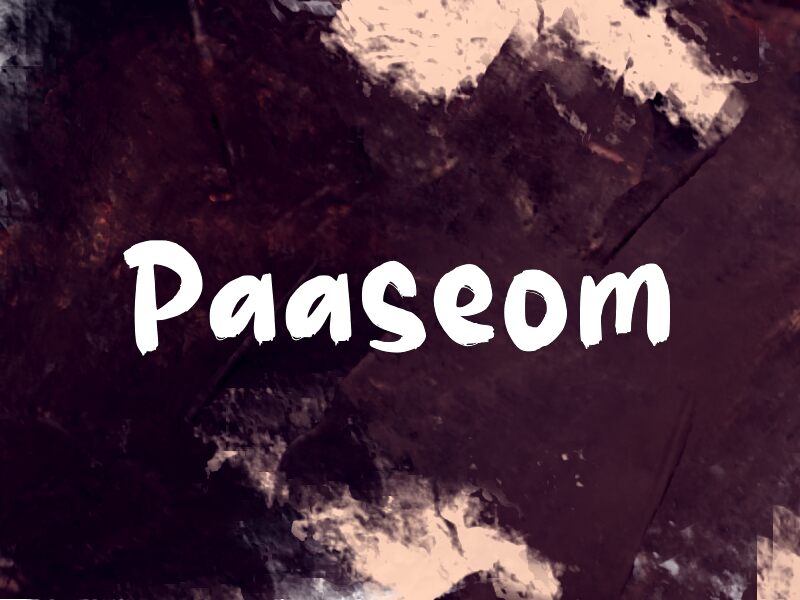
Paaseom font designed by wep is a free font available for personal use. Its brush style is an immediate eye-catcher, establishing it as the perfect font for when you want to integrate attention to detail with a hand-drawn aesthetic. Paaseom captures a slightly casual feel with its organic texture, giving an informal tone while just feeling a bit informal. Its rustic vibe is sure to give you the enjoyable and relaxing look you’re going for as well as an approachable character and friendly atmosphere. Paaseom is here for a nonchalant vibe that can apply itself to modern applications yet appear timeless enough for your ultimate benefit.
As much as this font looks great in branding for casual eateries or creative projects, the list goes further. Consider it in packaging, posters, business cards, invitations, wall art, blog titles, logos, apparel, presentations, or promotional videos. It works superbly with all of these and is a great choice for anything that needs a more homey and friendly outlook to it.
Paaseom is a unique and versatile free font that stands out with its modern design and elegant curves. Perfect for a variety of applications, this font adds a contemporary touch to your projects, whether you’re creating eye-catching graphics, stunning presentations, or beautiful invitations.
With its clean lines and stylish appearance, Paaseom is ideal for both digital and print media. Enjoy the flexibility of using this free font to enhance your creative work and make it truly memorable.